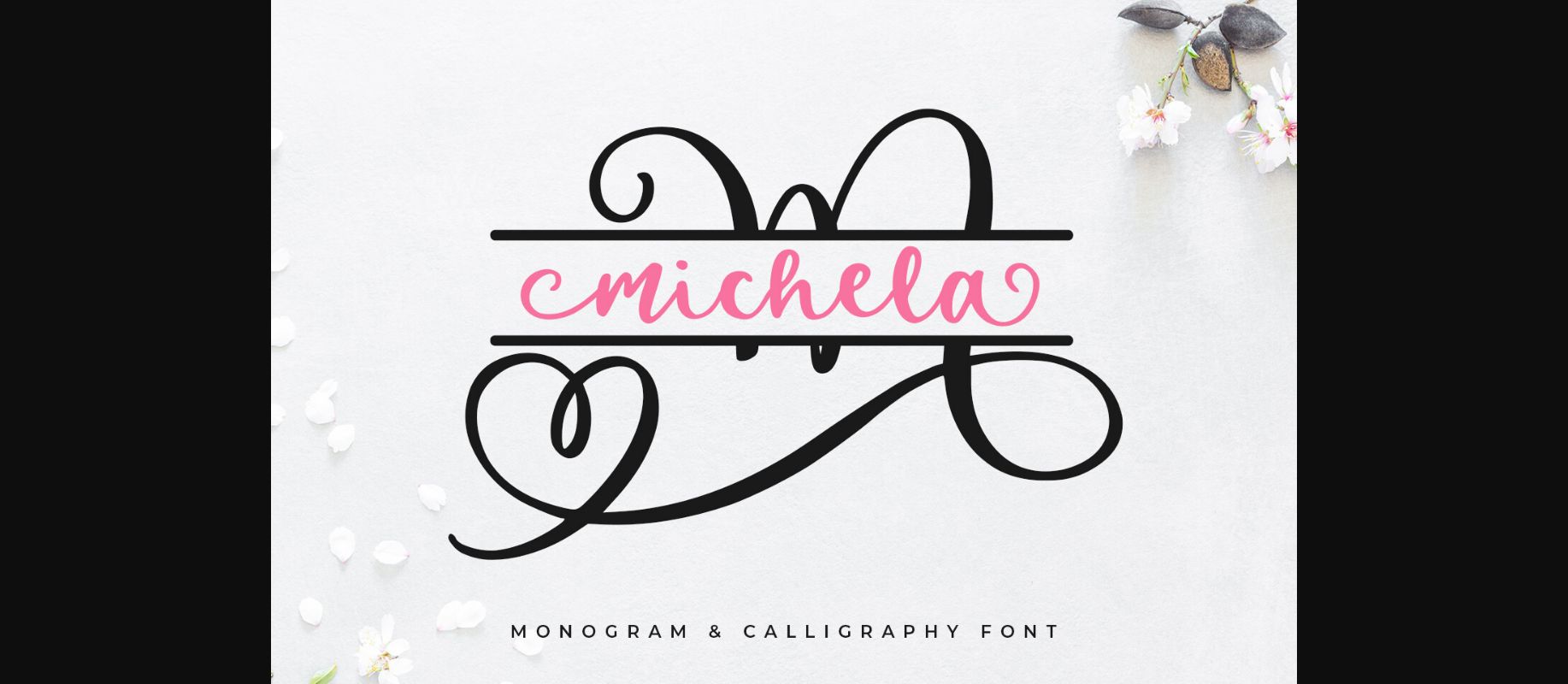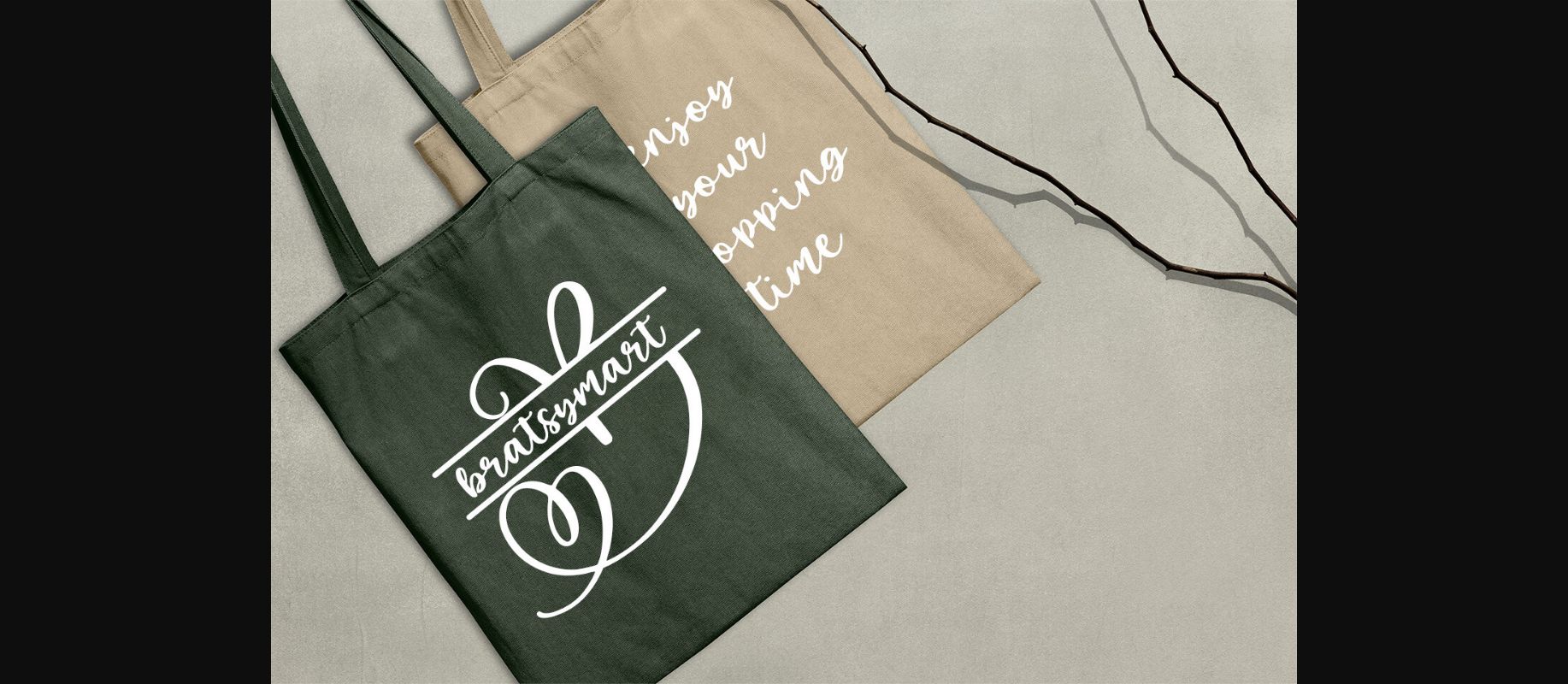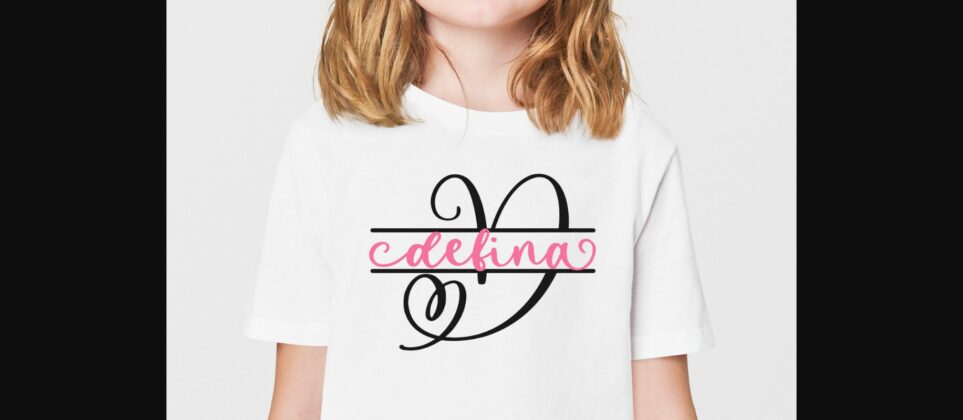
About Michela Duo Font
Michela Duo is an organic and beautiful decorative font, featuring lovely ornaments. No matter the topic, this font will be an incredible asset to your fonts’ library, as it has the potential to elevate any creation.